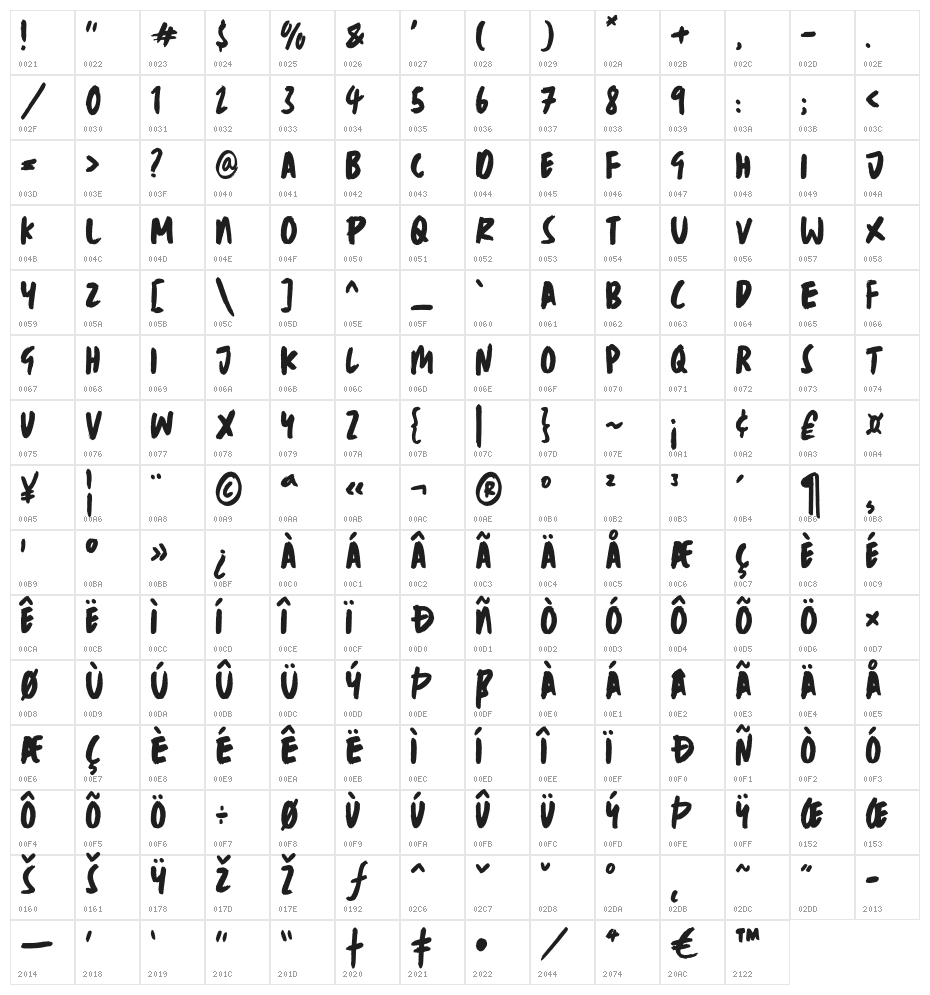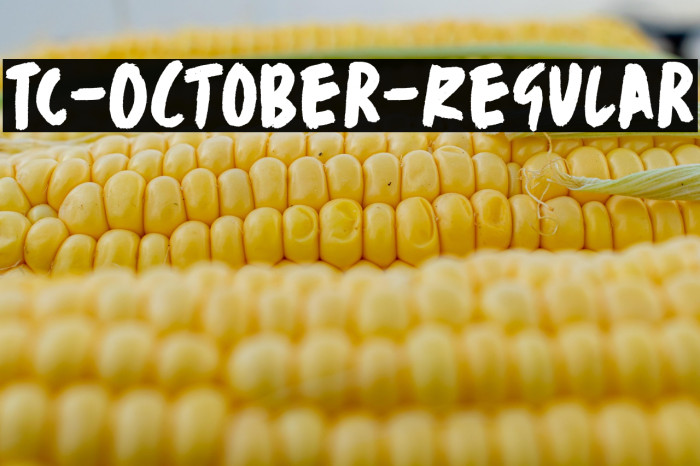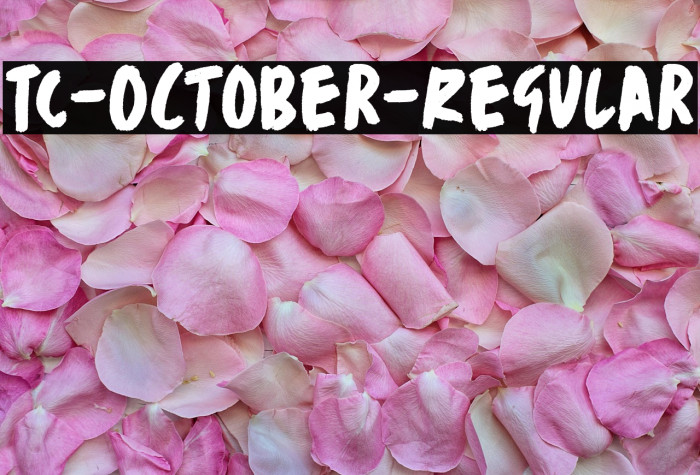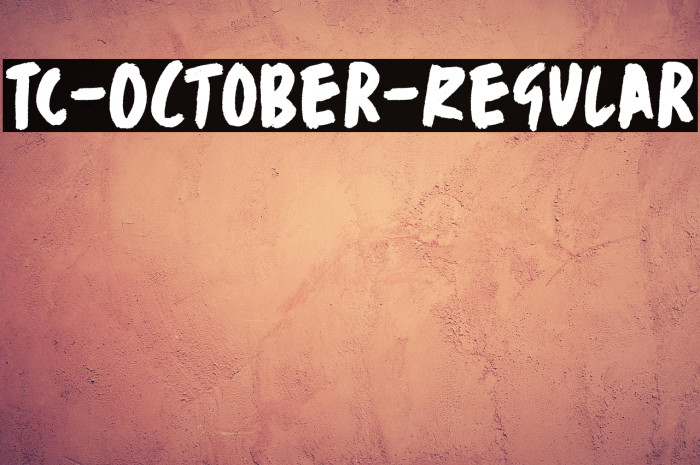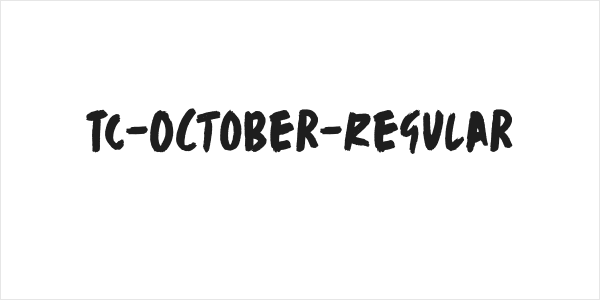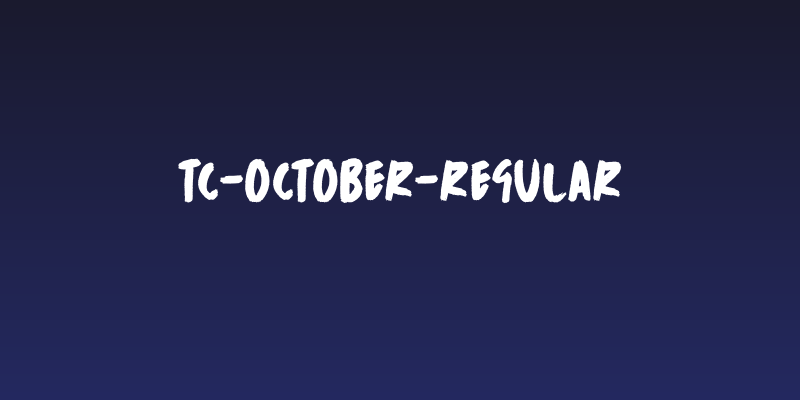
TC-October-Regular Font
TC-October-Regular Description
This font exhibits a bold and expressive handwritten style, characterized by its thick, brush-like strokes that convey a sense of energy and dynamism. The letters are slightly irregular, adding a personal and artistic touch to the text. The uppercase and lowercase letters maintain a consistent style, with rounded edges and a slightly slanted orientation, enhancing the casual and informal appearance. The numerals and special characters follow the same design principles, ensuring a cohesive look across all elements. This font is ideal for projects that require a bold statement or a creative flair.
| Proposed Projects | Ideal for posters, branding, social media graphics, and creative projects that require a bold, artistic touch. |